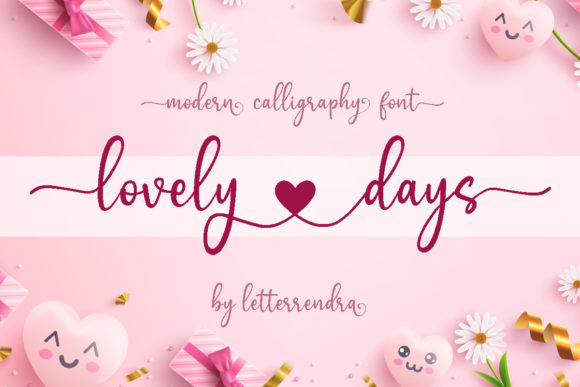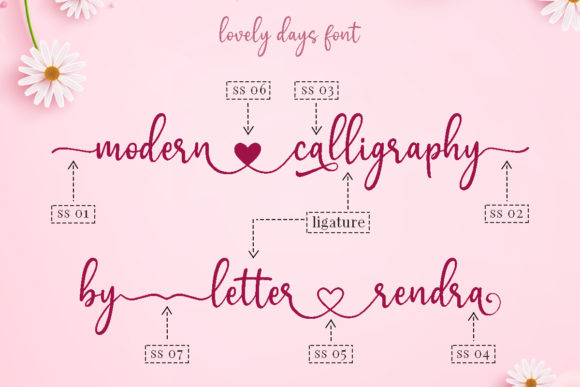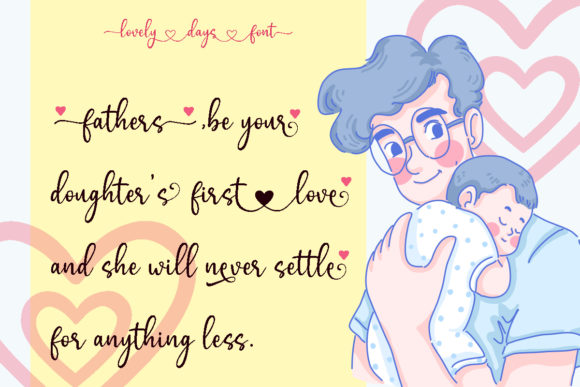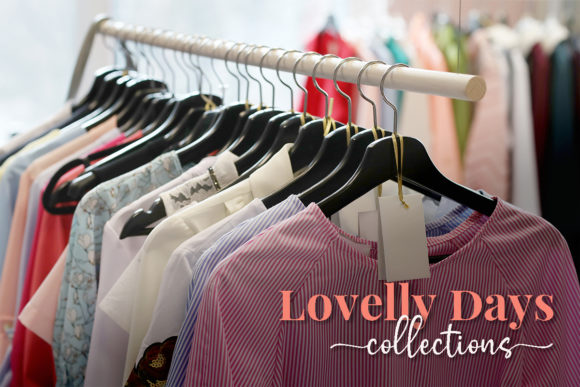
Lovely Days Font: Romantic Calligraphy for Wedding Invitations
About the Lovely Days Font
Let us introduce you to Lovely Days Font, where timeless design meets modern craftsmanship. Lovely Days is a romantic handwritten font, featuring amazing heart swashes. This font is PUA encoded which means you can access all of the glyphs and swashes with ease! It features a varying baseline, smooth lines, gorgeous glyphs and stunning alternates. Fall in love with its incredibly versatile style and use it to create spectacular designs!
Lovely Days is ideally suited for projects requiring a touch of romantic charm. It excels in headlines, short text blocks on invitations or social media graphics, and even logo design where its swashes can add a unique flourish. Avoid using it for lengthy body text or UI elements; the varying baseline and handwritten nature make it less legible in extended passages.
The font’s personality is undeniably romantic and playful. To complement this, pair it with a clean sans-serif like Lato for a balanced contrast, or a classic serif such as Garamond for a more traditional feel. For a bolder statement, a geometric sans-serif like Montserrat can provide a modern counterpoint.
Consider Lovely Days for brands focused on weddings, beauty, fashion, or artisanal products where its delicate charm will resonate well. The font’s swashes are particularly effective in creating visual interest on packaging or stationary.